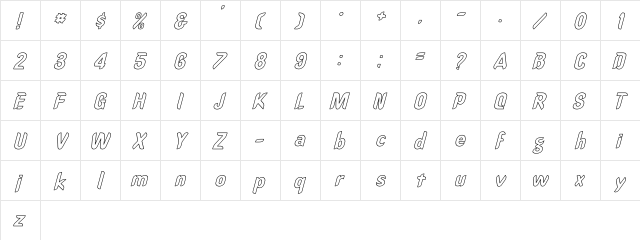
OregonDry Hollow Italic Italic
Design Context for OregonDry Hollow Italic Typeface
OregonDry Hollow Italic offers clean, dependable letterforms without strong stylistic allegiance, making it a practical choice for designers who need flexibility. The slanted form adds forward momentum and visual energy.
Pro Tip: Try OregonDry Hollow Italic for annotation and caption copy alongside an upright companion — the contrast in angle creates a dynamic but ordered typographic system.